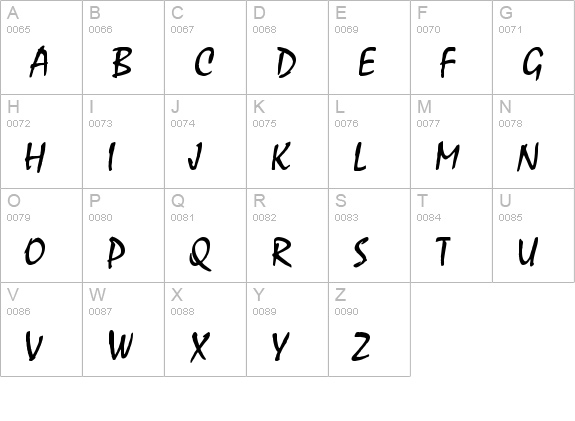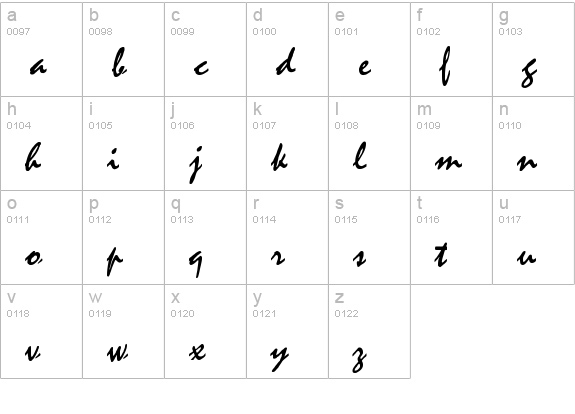
Mystical Font Details
The Mystical font is a captivating and enchanting typeface that exudes a sense of magic and mystery. Its intricate swirls and elegant curves give it a mystical and otherworldly appearance, making it perfect for adding a touch of fantasy to your designs. With its unique and ethereal charm, Mystical font is sure to captivate and mesmerize anyone who lays eyes on it. And the best part? Mystical font is completely free to download at FontsMarket.com! Embrace the magic and beauty of this enchanting font and let your creativity soar with Mystical. Whether you're designing invitations, posters, or logos, Mystical font will add a touch of enchantment to your projects. Download it now and unlock the secrets of this mystical typeface.